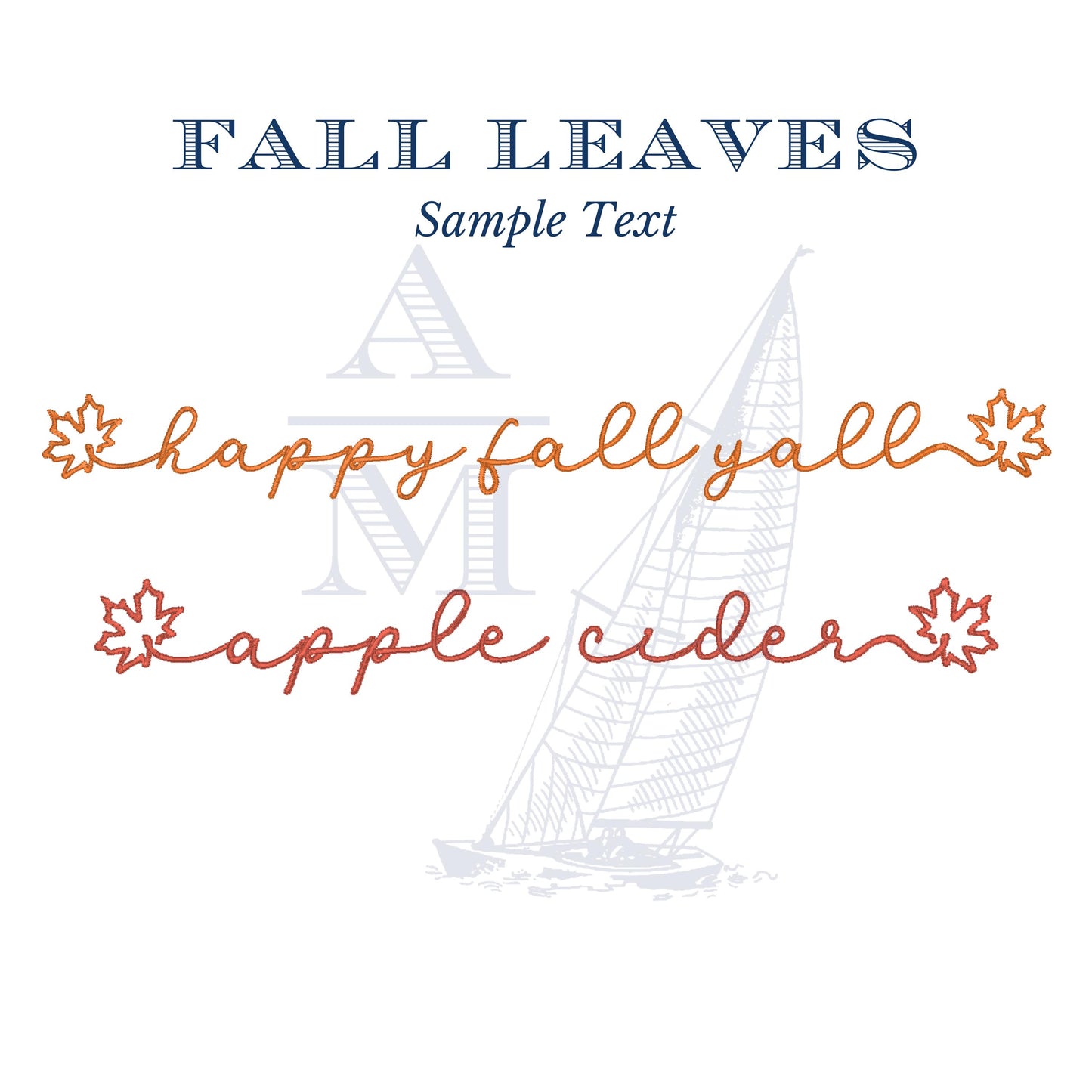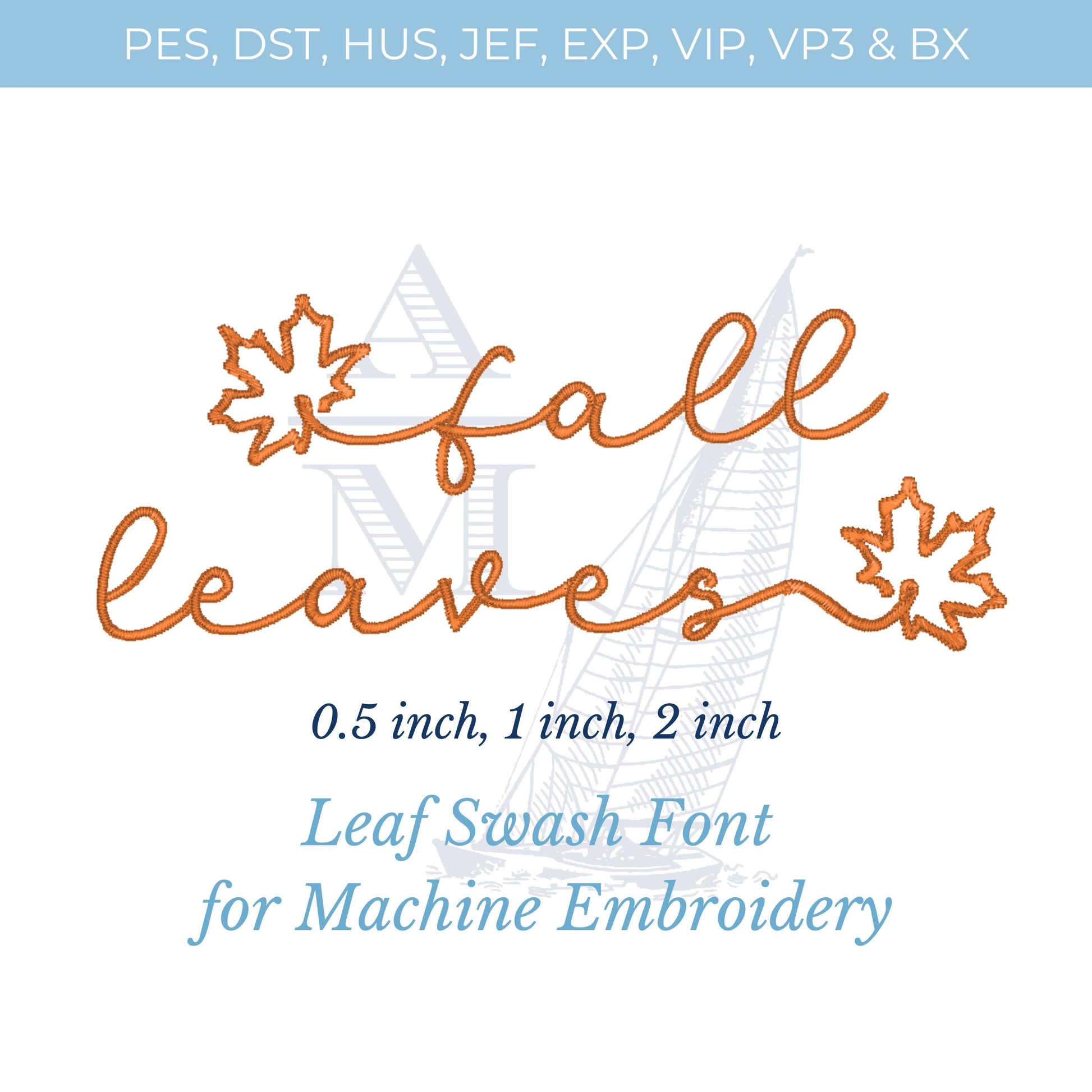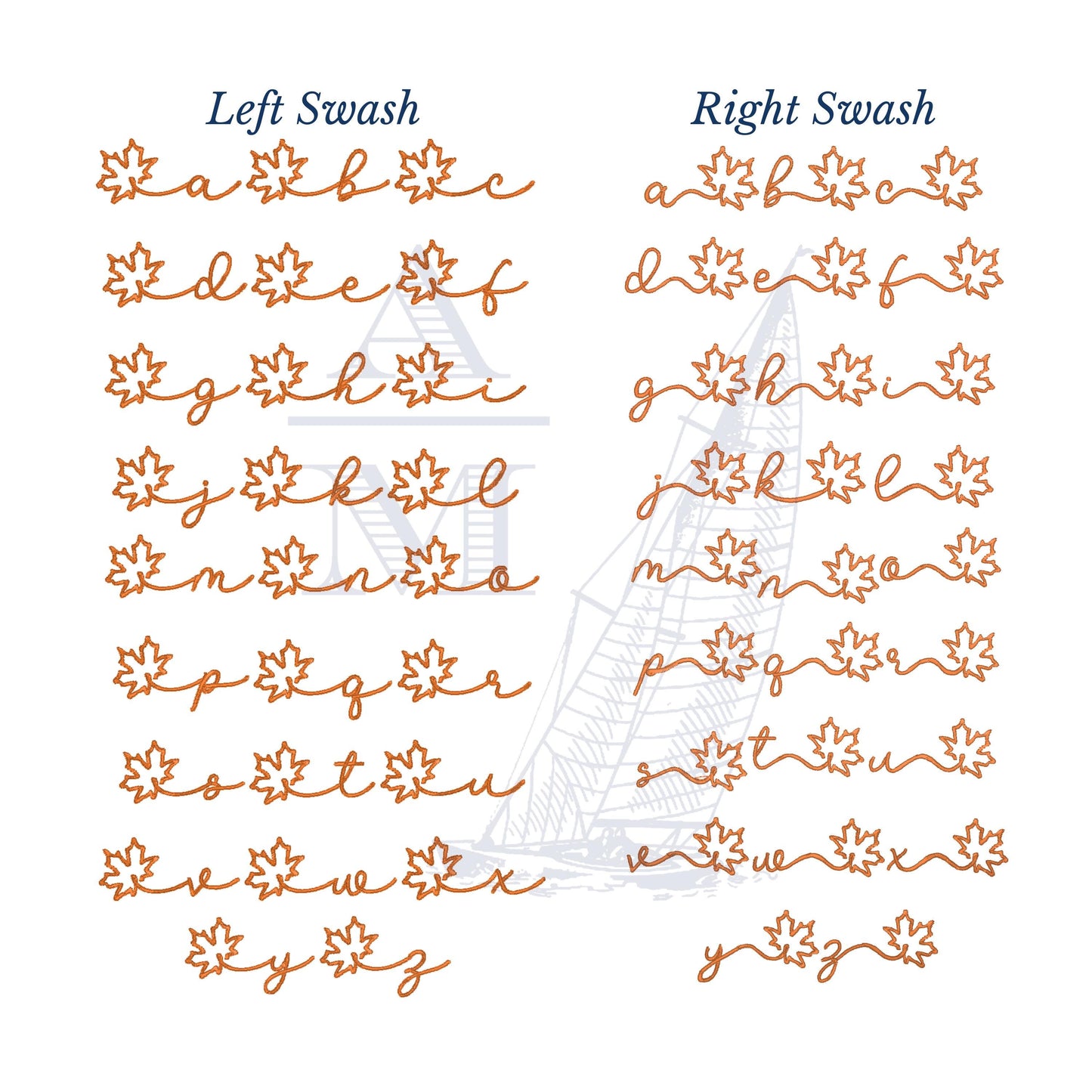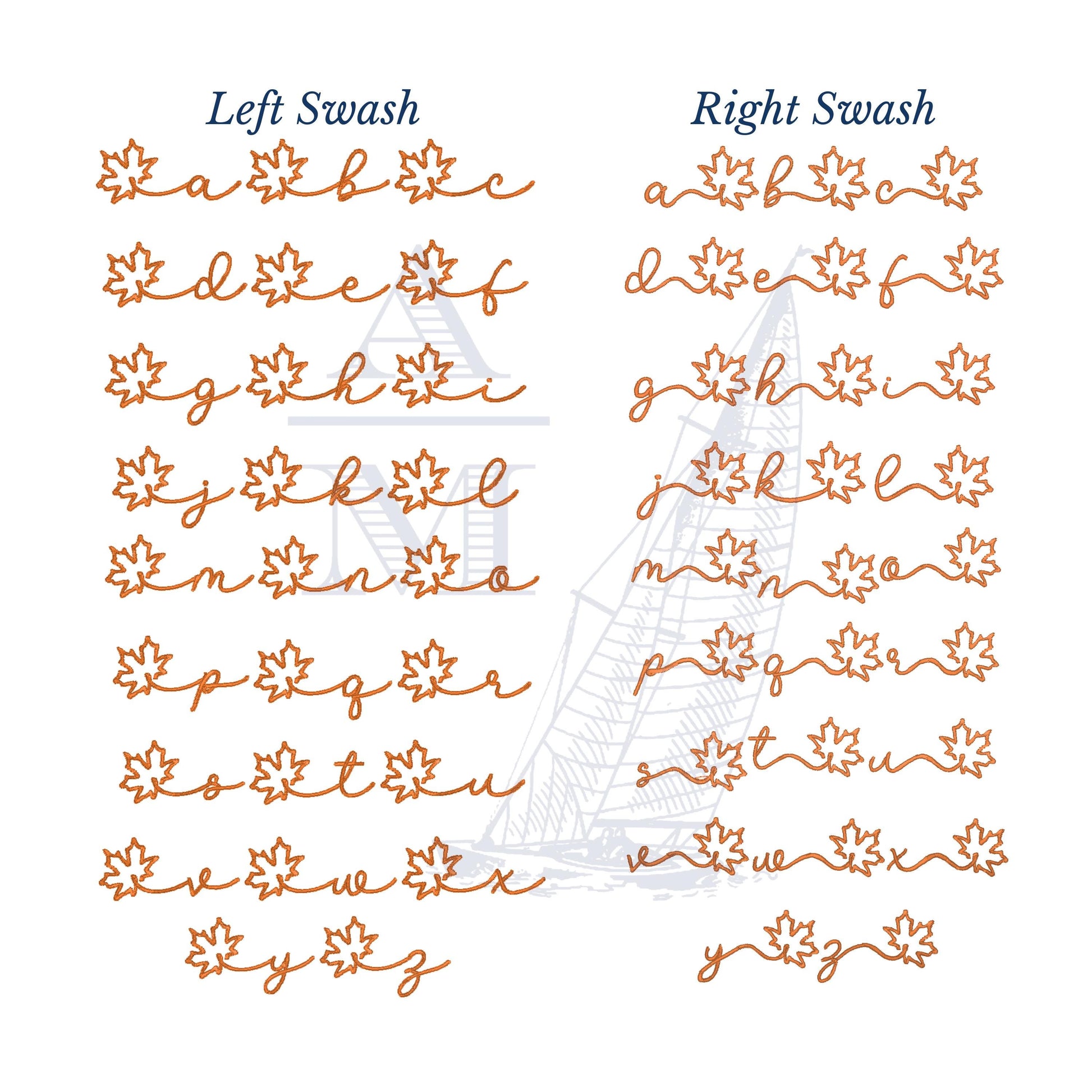
Fall Leaves Font for Machine Embroidery, Autumn Script with Leaves, BX Included, Fall Thanksgiving Digital Download, Seasonal Letters
Happy Fall Y‘all! Pick up this font for all of your fall, Halloween or Thanksgiving embroidery projects. Carefully digitized in three different sizes, 0.5", 1" and 2" tall. You will receive 3 fonts per size--the left swash, main alphabet and right swash. The font is designed to include leaves on the left and right side of words or phrases. You can also use the full alphabet without the leaves, as it includes upper and lowercase letters. Use on a wide variety of items to add a touch of autumn style including tote bags, towels, sweaters or even blankets.